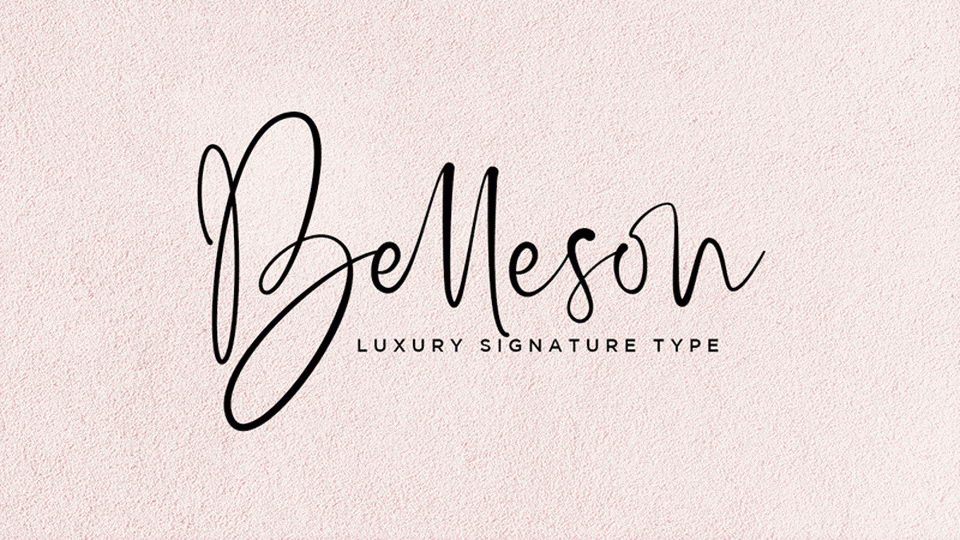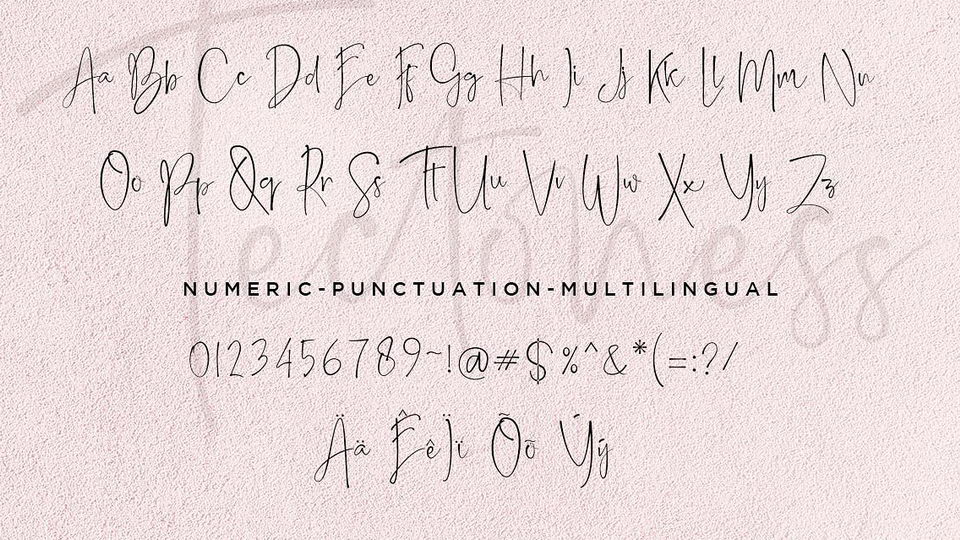
Belleson a luxury script font designed many character of each lettert and ligature that will show elegant taste. Belleson can be used in brandsing, for logo, blog, website, and all everything that related with letters.